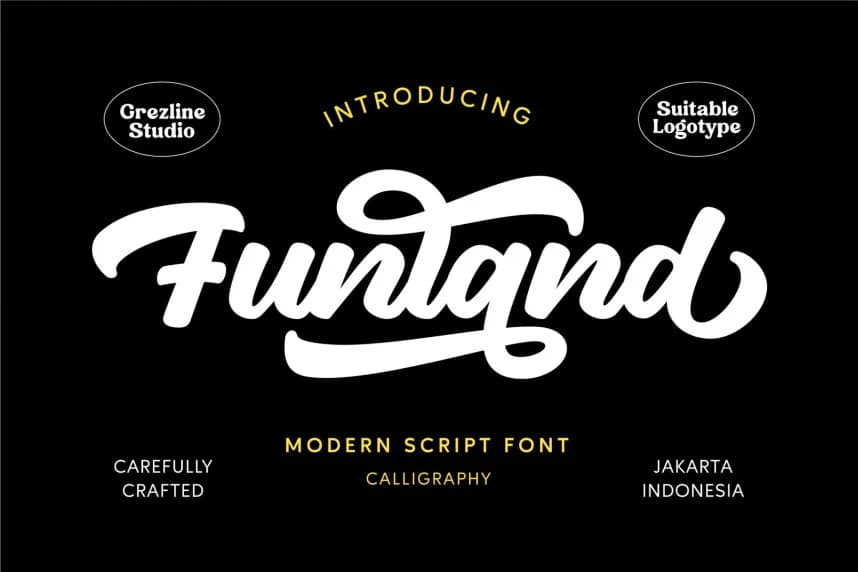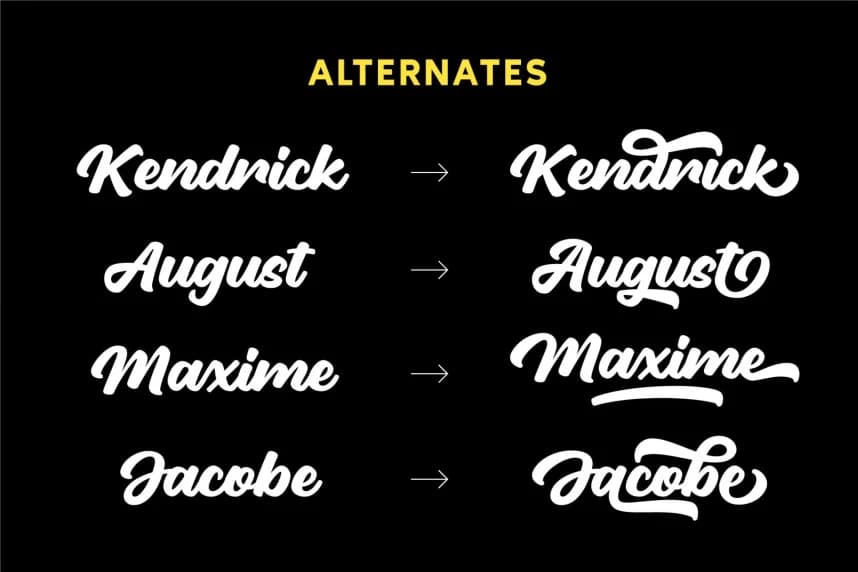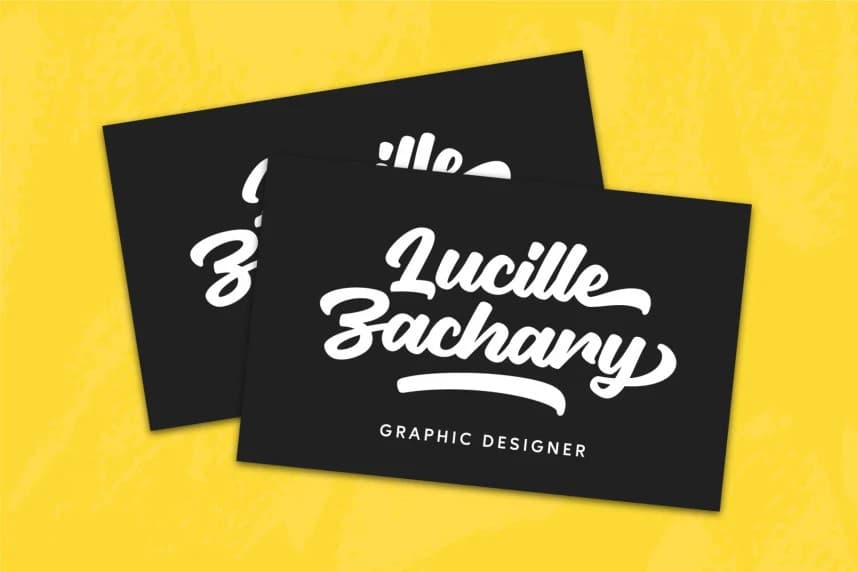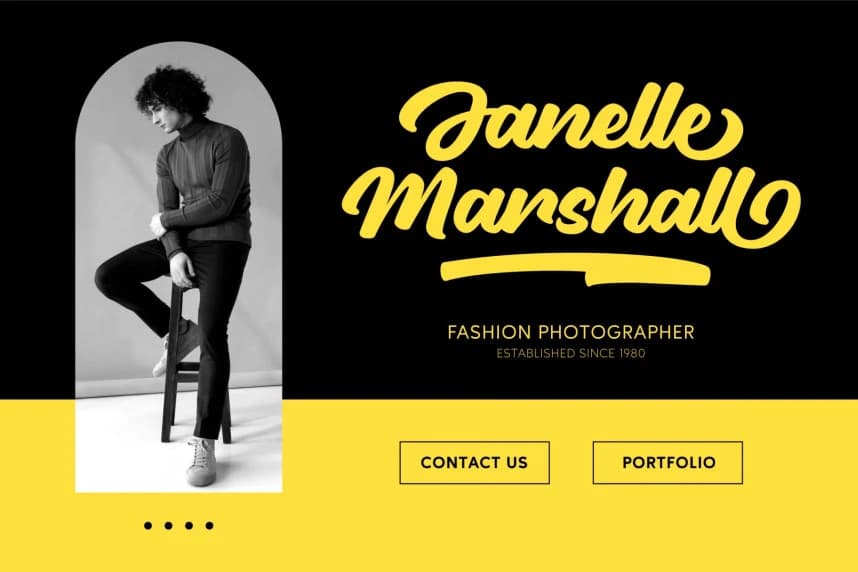
Funland Script Font
Funland Script Font is a brand new modern script font. It is a perfect use for logotype, typography design, product packaging, t-shirt design, label poster, headings, letterhead, signage, and anything that need modern taste.